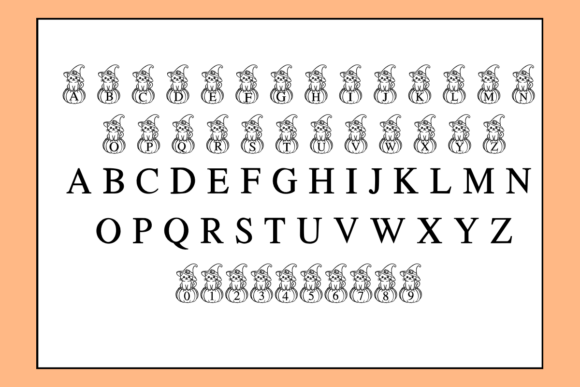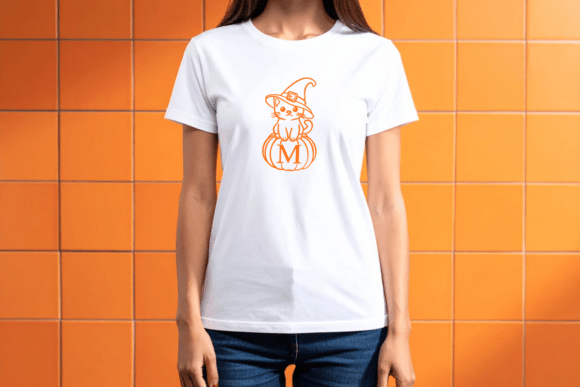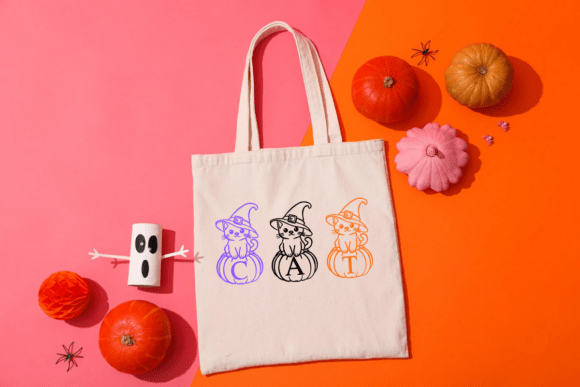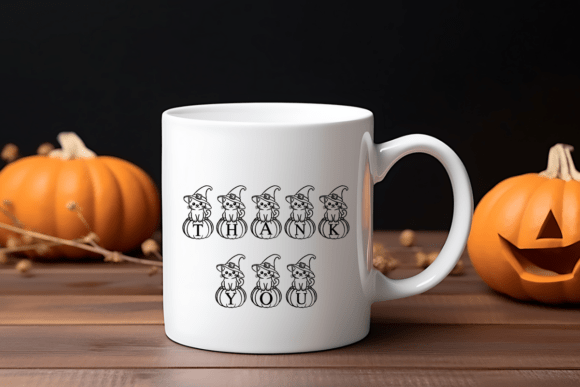
Introduction to Pumpkin Meow Font
As a designer, there’s nothing quite like that moment when a new font catches your eye and sparks a creative idea. For many, it’s a game-changer that can elevate a project from ordinary to extraordinary. And that’s exactly what the Pumpkin Meow Font does – it adds a touch of whimsy and personality to any design. With its high-quality, hand-drawn feel, this free download is a treasure trove for designers looking to add some visual flair to their creative projects.
Whether you’re crafting a birthday card, planning a social media post, or simply jotting down notes, the Pumpkin Meow Font is a versatile design resource that’s sure to bring a smile to your face. Its transparent background makes it easy to layer and manipulate, allowing for endless possibilities in your designs. And the best part? It’s completely free to download and use, making it an invaluable addition to any designer’s toolkit.
Key Features of Pumpkin Meow Font
- Unique, hand-drawn design with a playful and whimsical feel, perfect for creative projects.
- Perfect for use in various creative projects, such as digital art, print designs, and web graphics.
- A great design resource for those looking for a unique and eye-catching font for their next project.
Honest Review: Pumpkin Meow Font
I recently had the chance to work with the Pumpkin Meow Font, and I must say it’s been a delightful experience. This high-quality font is perfect for any creative project that requires a touch of whimsy and playfulness.
- Unique and playful design that adds character to any project ✨
- High-quality font that is crisp and clear ✨
- Limited font styles and variations, which may not be suitable for complex projects ⚠️
- May not be suitable for formal or professional projects due to its playful nature ⚠️
Overall, the Pumpkin Meow Font is a great addition to any designer’s toolkit. While it may have some limitations, its unique design and high-quality rendering make it a valuable resource for creative projects. I would definitely recommend it to designers looking for a fun and playful font to add some personality to their work.
Pumpkin Meow Font
The Pumpkin Meow Font is ideal for various design projects, including social media graphics, blog posts, and product branding. It’s a free download and a high-quality design resource that can add a unique touch to your creative project. Use it to create a transparent background design or layer it over an existing design for a creative look.